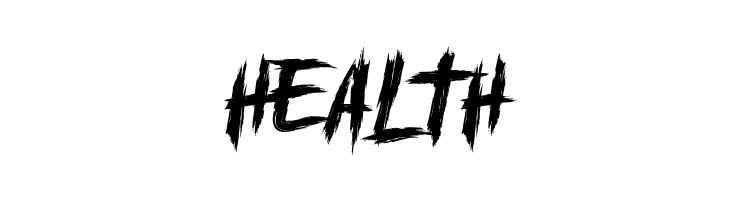
A playful and elegant script font with a handwritten, cursive style.
A bold, jagged font with a raw, energetic style.
An elegant, flowing script font with graceful curves and loops.
A cursive, calligraphic font with elegant, flowing lines and a bold presence.
A graceful calligraphic script font with elegant curves and dynamic flow.
A playful and elegant script font with flowing, cursive letterforms.
A playful, hand-drawn font with double-line outlines and whimsical style.
A playful, handwritten script font with a dynamic and friendly style.
A fluid and elegant script font with dynamic letterforms.